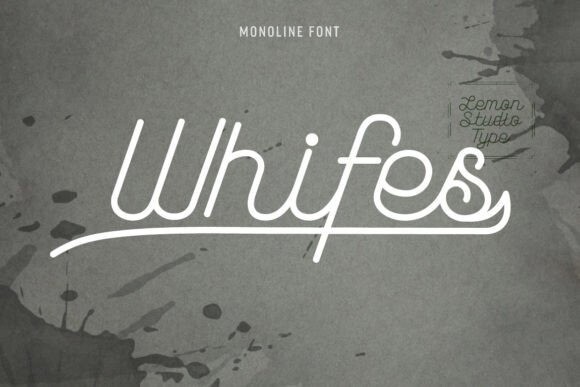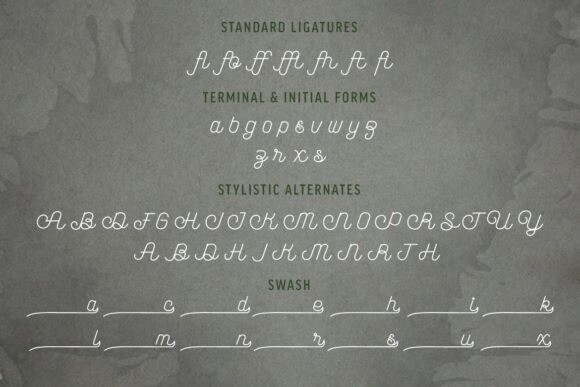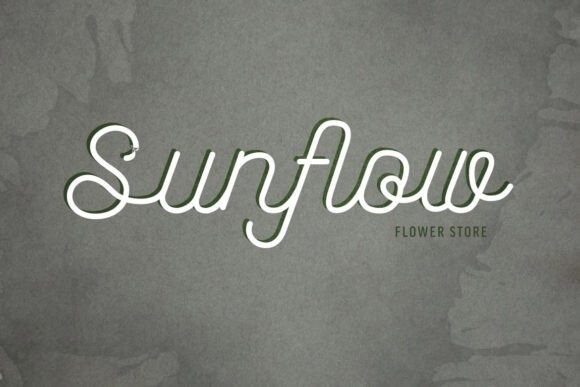
Whifes Font
Whifes is a monoline script font with a strong vintage character. It will add a luxury and feminine spark to any design project that you create.
Whifes is so perfect for brandings, headings, wedding cards, or just to complete your cute quotes.